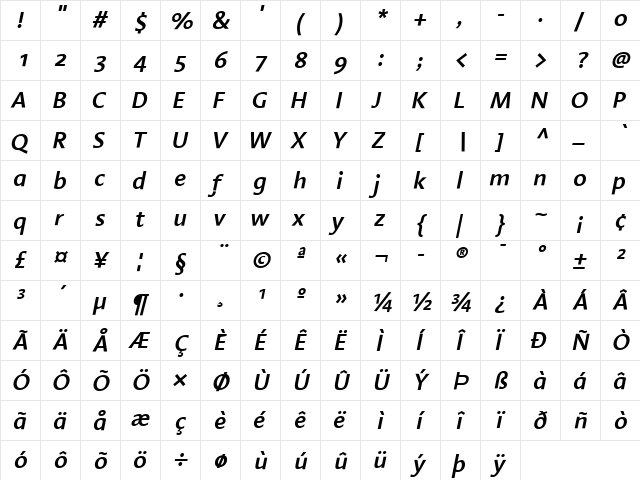
LinotypeAroma Light Semibold Italic Font Preview
| Style | Semibold Italic |
Design Context for LinotypeAroma Light Typeface
LinotypeAroma Light takes a measured approach to typography — its balanced proportions and neutral character make it a reliable workhorse for both digital and print work. The slanted form adds forward momentum and visual energy. Its bold stroke weight gives it real presence on the page.
Pro Tip: Try LinotypeAroma Light for annotation and caption copy alongside an upright companion — the contrast in angle creates a dynamic but ordered typographic system.